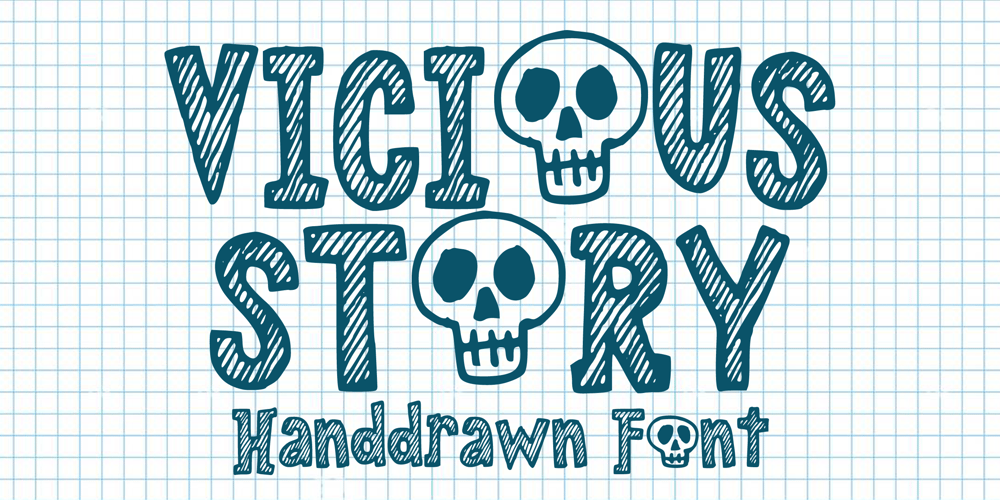
Vicious Story Font Family was designed by Gabriel Valentinus and published by Mvmet. Vicious Story contains 1 styles and family package options. Vicious Story is a very cool and playful hand-drawn display font, it can be used for your kids friendly horror themed designs and many more. It works great for creating cool designs that scream for attention. It’s ideal for anything ranging from t-shirts, book designs, restaurant menu, blog writing, greeting cards to stickers, or anything that needs a casual touch. Fall in love with its incredibly cool style, and use it to create lovely designs!